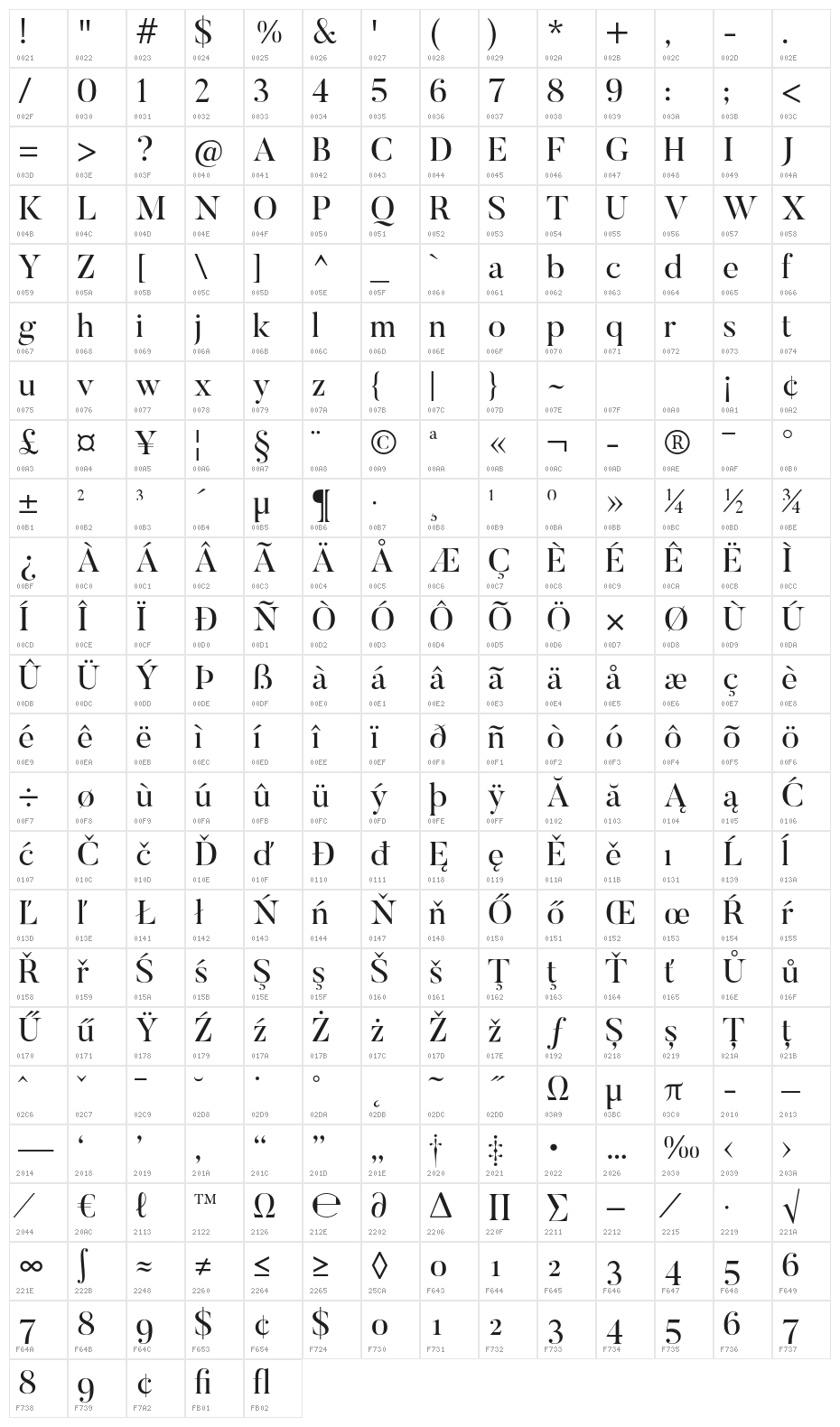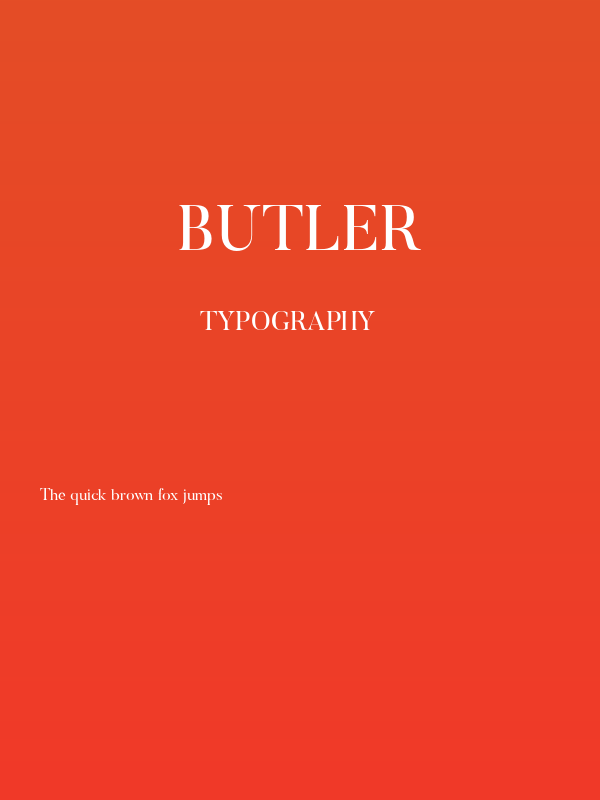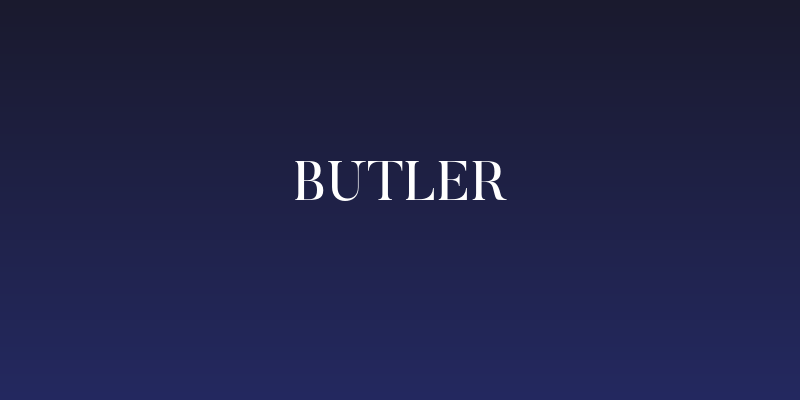
Butler Font
Butler Description
This font features a sophisticated serif style with elegant curves and a modern twist. The uppercase letters are bold and commanding, while the lowercase letters maintain a refined and balanced appearance. The numerals are clear and distinct, making them suitable for various applications. Special characters are designed with the same attention to detail, ensuring consistency throughout. The overall design is both classic and contemporary, making it versatile for different design needs.
| Proposed Projects | Ideal for branding, editorial design, luxury packaging, and high-end invitations. |